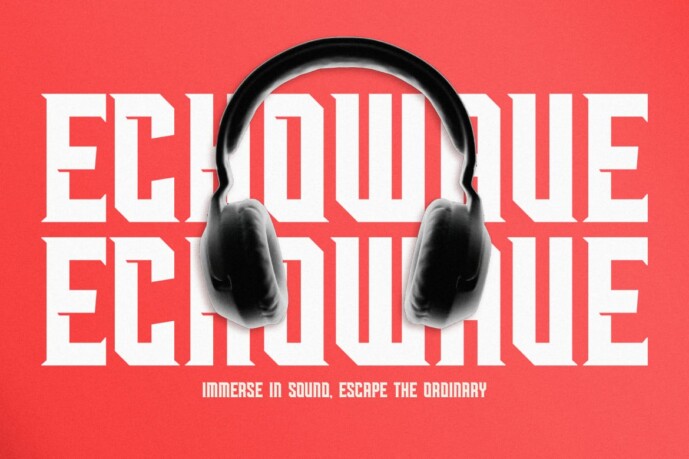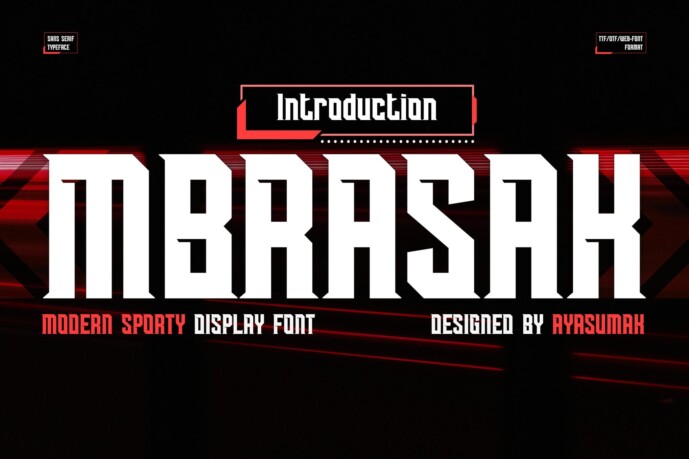
Mbrasak Font
Designer: ayasumak
Mbrasak Font – Sports Gamer Bold Font, a modern professional typeface ideal for headline or title, logo, merchandise, apparel, magazines, tickets, scoreboards, sports flyers and many more.